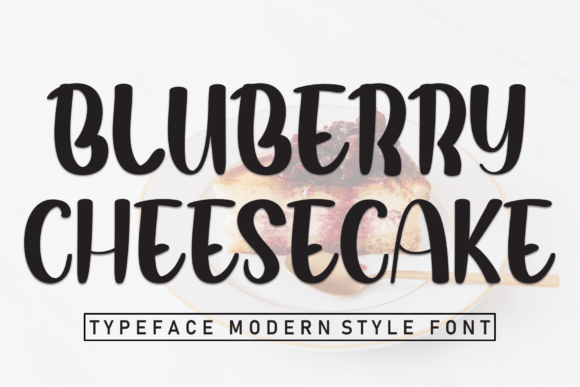
Discover the Sweet Charm of Bluberry Cheesecake Font
Have you ever found yourself in the midst of a creative block, staring blankly at a blank page, and suddenly, the perfect idea strikes? Maybe it’s a beautiful sunset, a warm cup of coffee, or the sweet aroma of freshly baked goods – whatever it is, it sparks inspiration. For me, it was the taste of a juicy blueberry cheesecake that sparked the idea for a new font – the Bluberry Cheesecake Font.
This delightful handwritten font is perfect for adding a touch of warmth and personality to any design. Whether you’re creating wedding invitations, cards, or any other project that needs a little extra love, the Bluberry Cheesecake Font is an ideal choice. Its sweet and friendly nature makes it a valuable asset for designers looking to add a unique touch to their work.
Bluberry Cheesecake Font Key Features
- Font Family: A unique, modern sans-serif font designed to evoke the feeling of a sweet dessert.
- Unique Characteristics: The font features a unique blend of rounded and angular shapes, giving it a distinctive and eye-catching appearance.
Designer Review: Bluberry Cheesecake Font
I recently had the chance to work with the Bluberry Cheesecake Font, and I must say, it’s a unique addition to any design project. ✨ One of the things that works well is the font’s playfulness and whimsy. The curves and flourishes give it a lighthearted feel that’s perfect for designs that need a touch of personality.
Another advantage of this font is its versatility. ✨ It works well in both digital and print designs, and can be used for a wide range of applications, from titles and headings to body text. The font also has a number of styles, including bold, italic, and regular, which makes it easy to use in a variety of contexts.
However, there are a few limitations to consider. ⚠️ For one, the font may not be the best choice for formal or professional designs, as its playfulness can come across as unprofessional. Additionally, the font may not be suitable for designs that require a lot of text, as the curves and flourishes can make it difficult to read.
- Limited by its playfulness, may not be suitable for formal designs
- May not be suitable for designs with a lot of text
Overall, I think the Bluberry Cheesecake Font is a great choice for designers who want to add a touch of personality to their projects. While it may have some limitations, its playfulness and versatility make it a great addition to any design toolbox.
The Bluberry Cheesecake Font is ideal for:
1. Bakery and dessert-themed designs.
2. Food and drink branding.
3. Whimsical and playful designs.
To get the most out of the Bluberry Cheesecake Font, try:
1. Pairing it with a bold font for contrast.
2. Using it in combination with pastel colors for a soft look.
3. Experimenting with different font sizes and styles to create a unique look.
Alternatives to Bluberry Cheesecake Font for Designers
Great Vibes Font is a modern, elegant script font suitable for creating invitations, greeting cards, and other materials that require a touch of sophistication. It works well for designs that need to convey a sense of luxury and high-end feel. Compared to Bluberry Cheesecake Font, Great Vibes Font has a more refined and polished look, making it ideal for formal events and high-end branding.
Carolyna Pro Font is a stylish and versatile script font that can be used for a wide range of applications, from fashion and beauty to food and lifestyle. It has a more casual and playful feel compared to Bluberry Cheesecake Font, making it suitable for designs that require a friendly and approachable tone. Carolyna Pro Font is ideal for creating brand identities, social media graphics, and advertising materials.
Q: What is the recommended font size for using Bluberry Cheesecake?
The recommended font size for Bluberry Cheesecake depends on the intended use and the design software you are using. However, as a general guideline, use font sizes between 10pt and 24pt for body text, and 36pt to 48pt for headings. You can adjust the font size to suit your design needs and ensure readability.